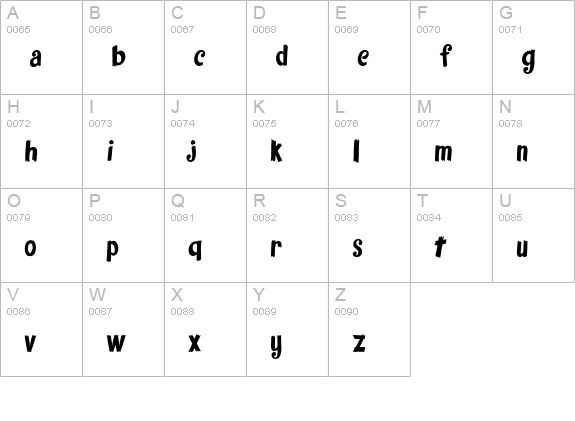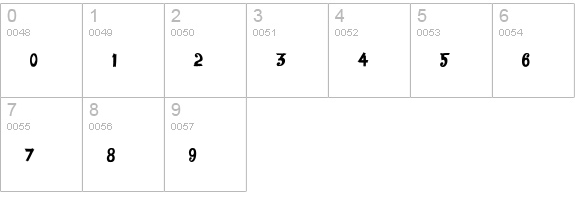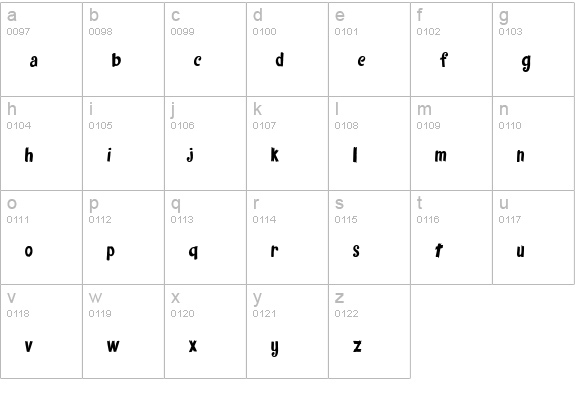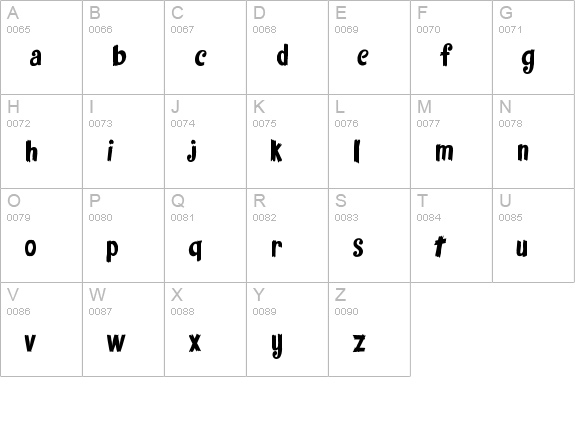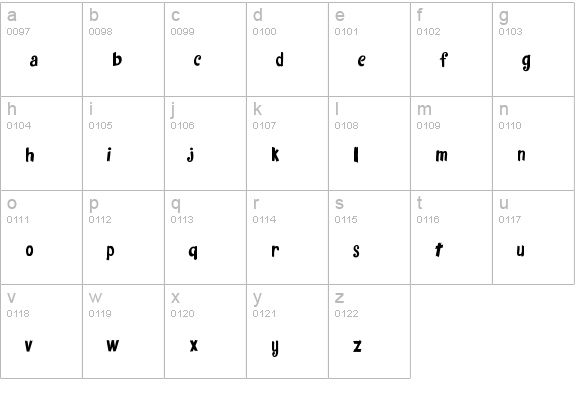
FantasticFont Font Details
Introducing FantasticFont - a whimsical and captivating typeface that will add a touch of magic to your designs. This unique font features elegant curves, playful swashes, and dynamic character variations that make it truly stand out. Whether you're creating invitations, branding materials, or social media graphics, FantasticFont will bring a sense of charm and creativity to your projects. The best part? FantasticFont is completely free to download at FontsMarket.com. That's right, you can access this beautiful font without spending a penny. Embrace the beauty of FantasticFont and let your creativity soar with this enchanting typeface. Download it now and add a touch of fantasy to your designs!